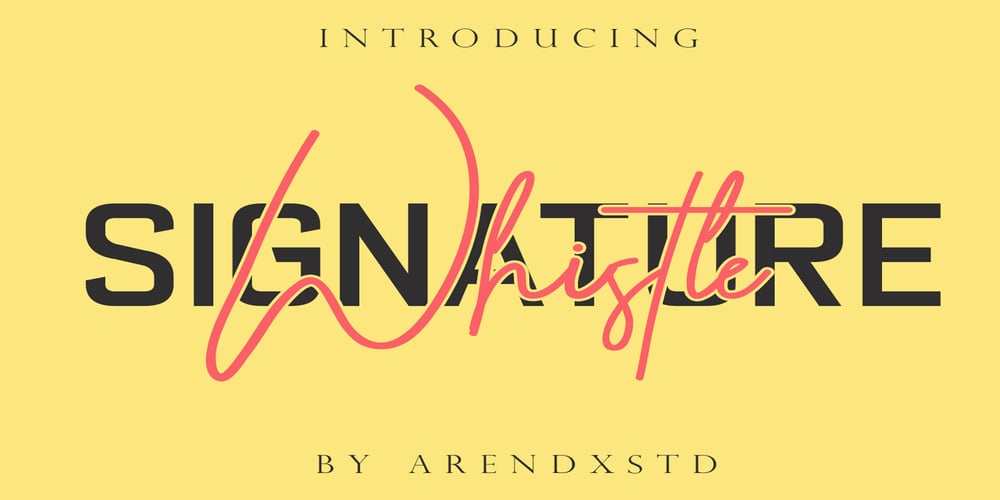
Whistle Font Family was designed by Asep Rendi and published by Arendxstudio. Whistle contains 1 styles and family package options. Introducing: Whistle – Signature casual handwritten font with personal charm. With an elegant sweep that is perfect for branding your product needs and brand name. PUA ENCODING SUPPORT Whistle contains upper & lower case letters, numbers and various complete marks while Whistle Alt has an alternative character set with lowercase letters that are completely new. Ligatures available for several lowercase letters (more natural double letters). This can only be accessed through software with different devices or machine panels, eg Photoshop / Illustrator. There he is! I really hope you enjoy it – comments & likes are always welcome and accepted. More importantly, don’t hesitate to send a message if you have a problem or question. Now just read this, go there and make it happen. Come and say hello on Instagram! https://www.instagram.com/aseprendii.otf/?hl=en